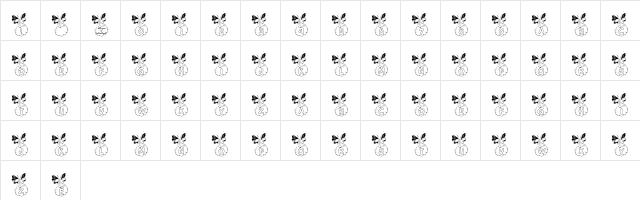
LCR When Elephants Fly! Regular
Design Context for LCR When Elephants Fly! Typeface
LCR When Elephants Fly! is a composed and adaptable typeface that performs quietly and consistently across a wide range of design contexts.